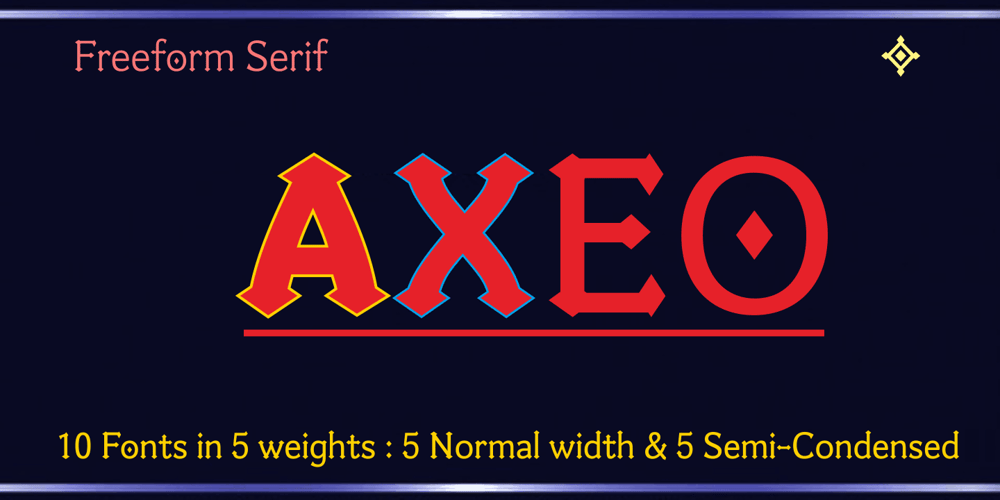
Axeo Font Family was designed by Sudarmaji and published by Asritype. Axeo contains 10 styles and family package options. Axeo is a freeform serif typeface. With more than 500 glyphs for each cut, Axeo supporting wide Latin Base Languages. The font structures is sans-serif typeface. Then, the fonts is made into serif (serifed) using rhombus and adapted/modified rhombus (before remove overlaps) placed on its appropriate positions. This fonts is released first, while the sans-serif is being in process. There are 10 fonts; 5 weight in normal width: Light, Regular, Medium, Bold, and Black; and 4 in semi-condensed: Light, Regular, Medium, Bold and Black, too. The fonts has some minor character variations, all are sets in SS01.There are also standard and discretionary ligatures, arrow, some geometric shapes and ornaments. With its sansserif structure, the Medium, Bold and Black fonts is playful with text effect in various applications such MS Word, CorelDraw or others to enhance the appearance. Its serif form will make unique enhancements. Thus, the fonts is suitable for Branding, logos, cards, advertisements, banners, display and more; for the main texts or its companions. While the light, regular and medium fonts can also be used as description text, card text, note, caption and longer non-formal texts or other usages.